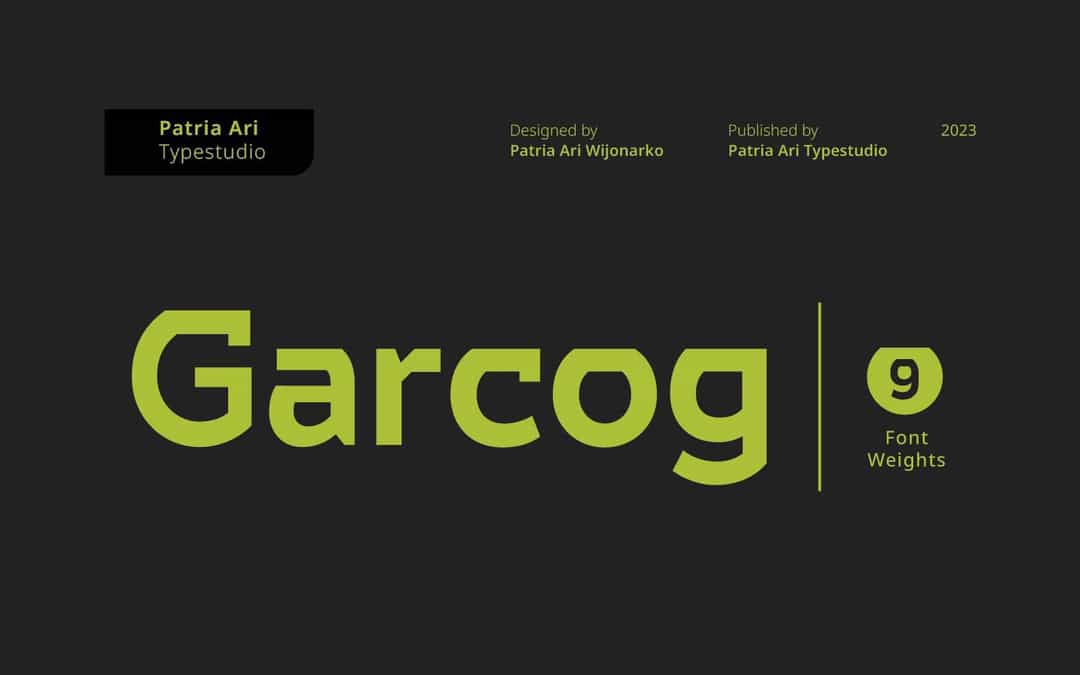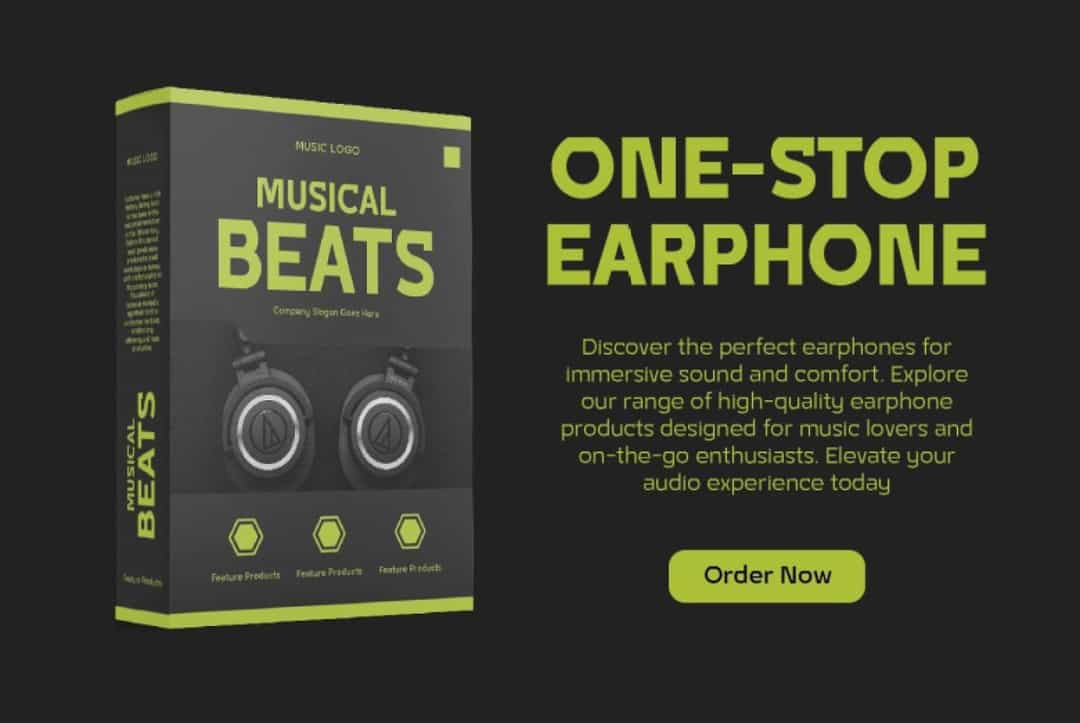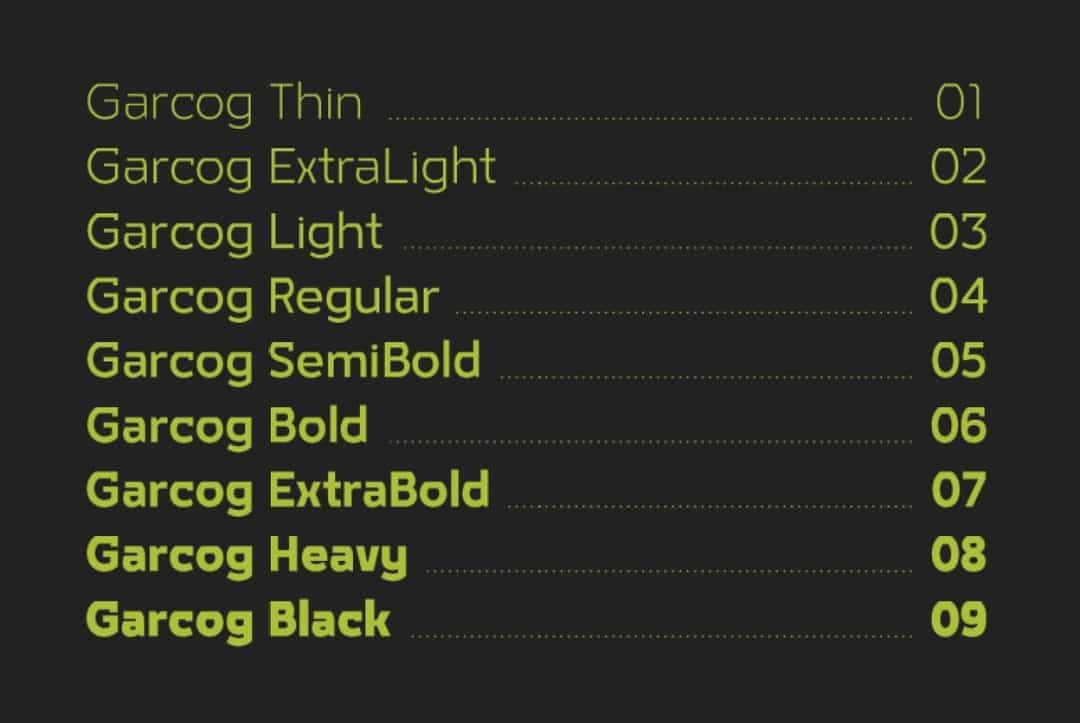
Garcog: the premier Sans Serif Font for Mechanical Aesthetics. Inspired by intricate designs of cogs and gears, this font boasts upper-cut shapes resembling precision engineering for an industrial elegance look that will elevate any project’s designs.